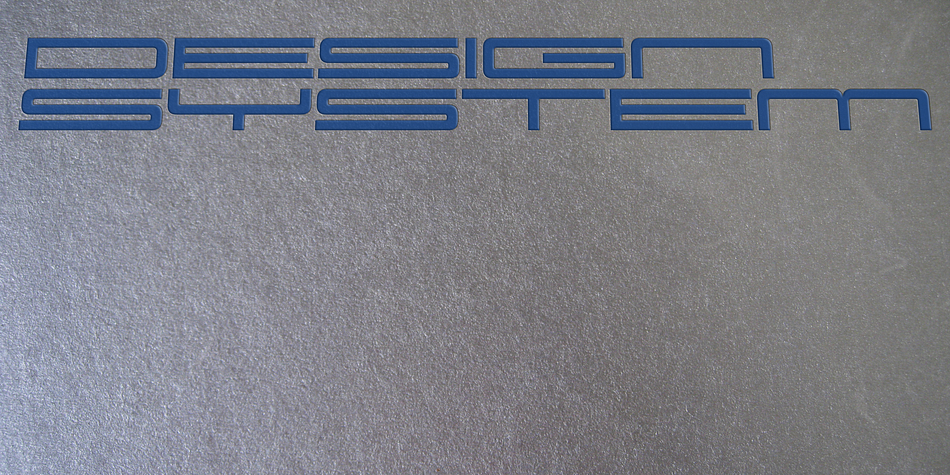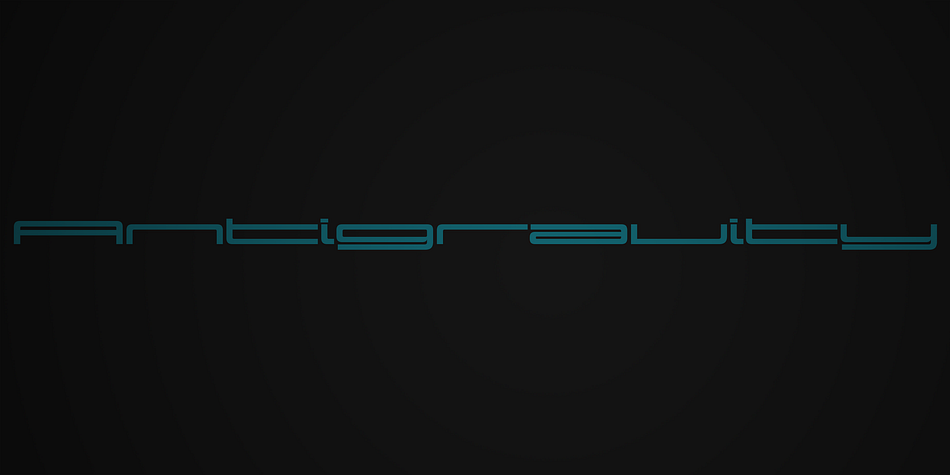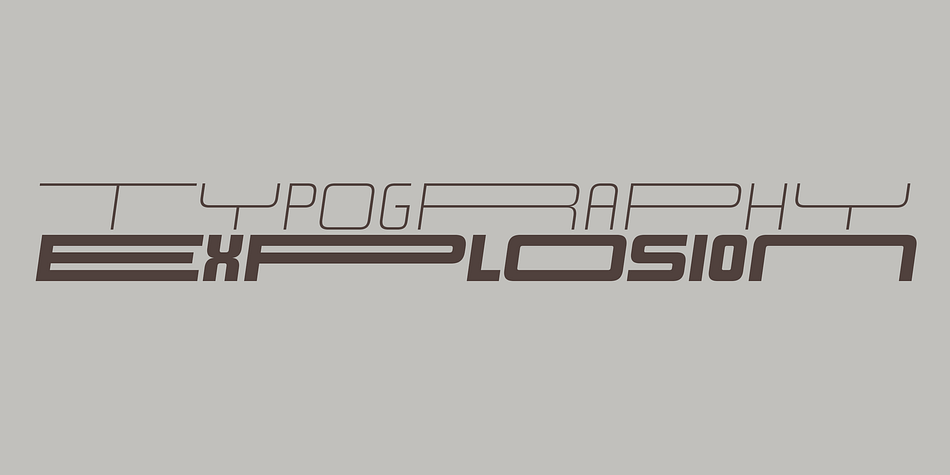
Design System D
Design System D is a display sans font family. This typeface has ten styles and was published by Dharma Type.
Design System is a great type system consisted of 5X7X2=70 font styles from 70s-style simple square sans to the widest style of all time that are best for titles, logo and text.
Their simple form does not limit the target of design and can be used for any creative work.
Additionally they all have been designed not to provide a feeling of strangeness when they are used in mixture each others.
Design System is a versatile type system consisting of 70 font styles (5 weights × 7 widths × 2 slopes).
Ranging from 70s-style simple square sans to ultra-wide designs, it’s ideal for titles, logos, and text.
The fonts feature a clean, minimal form that adapts easily to any creative context, without restricting your design direction.
What’s more, all styles are harmoniously crafted, ensuring they can be mixed and matched seamlessly without visual dissonance.